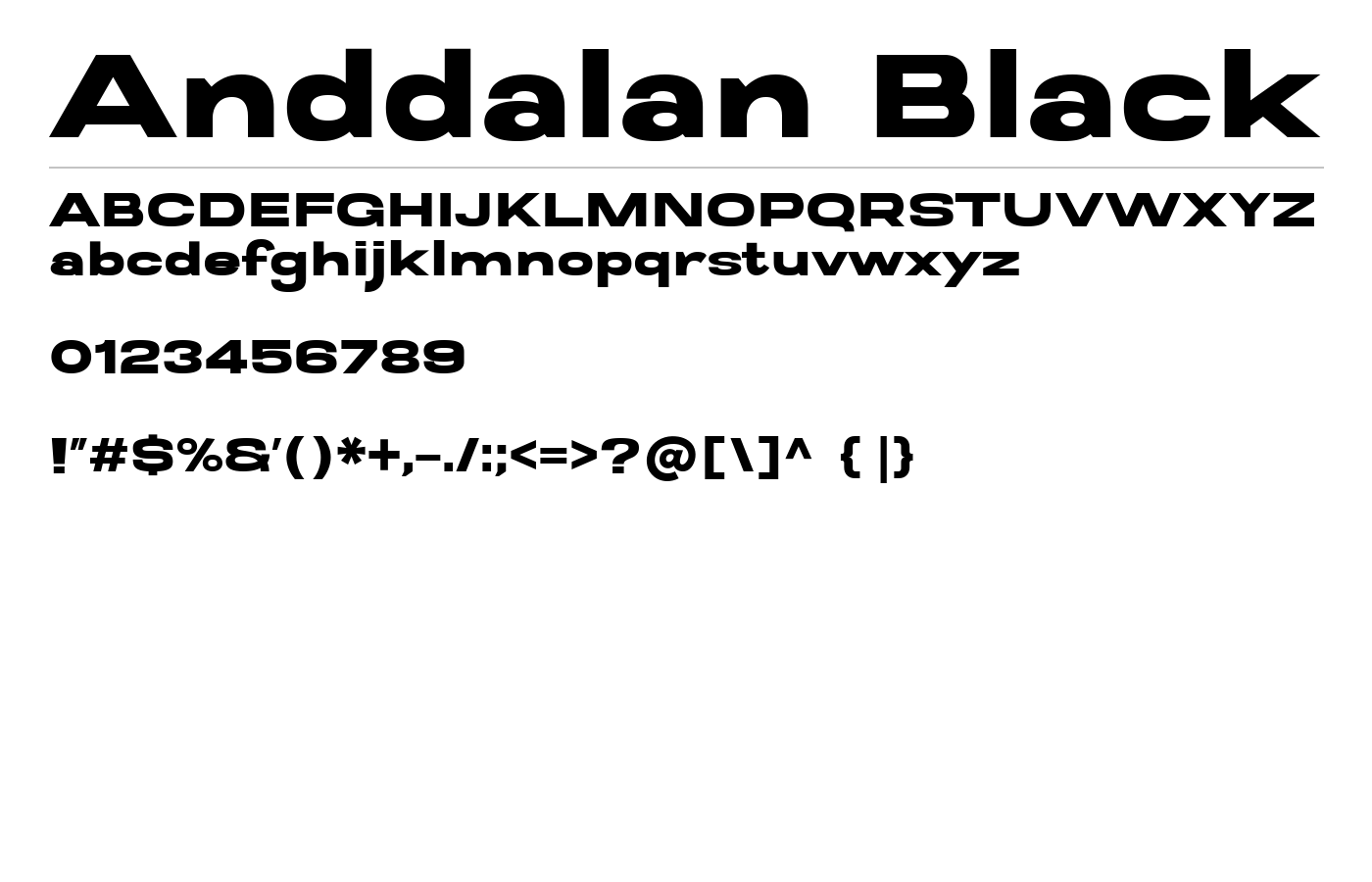
Anddalan Black is a bold, wide sans serif font with a strong, modern presence and a high x-height that enhances readability. Its geometric shapes and sturdy strokes give it a confident, contemporary feel, making it ideal for impactful headlines, branding, and advertising where clarity and boldness are key. This font works well for modern brands seeking a professional and striking typographic voice.
Anddalan Font
About Anddalan Font